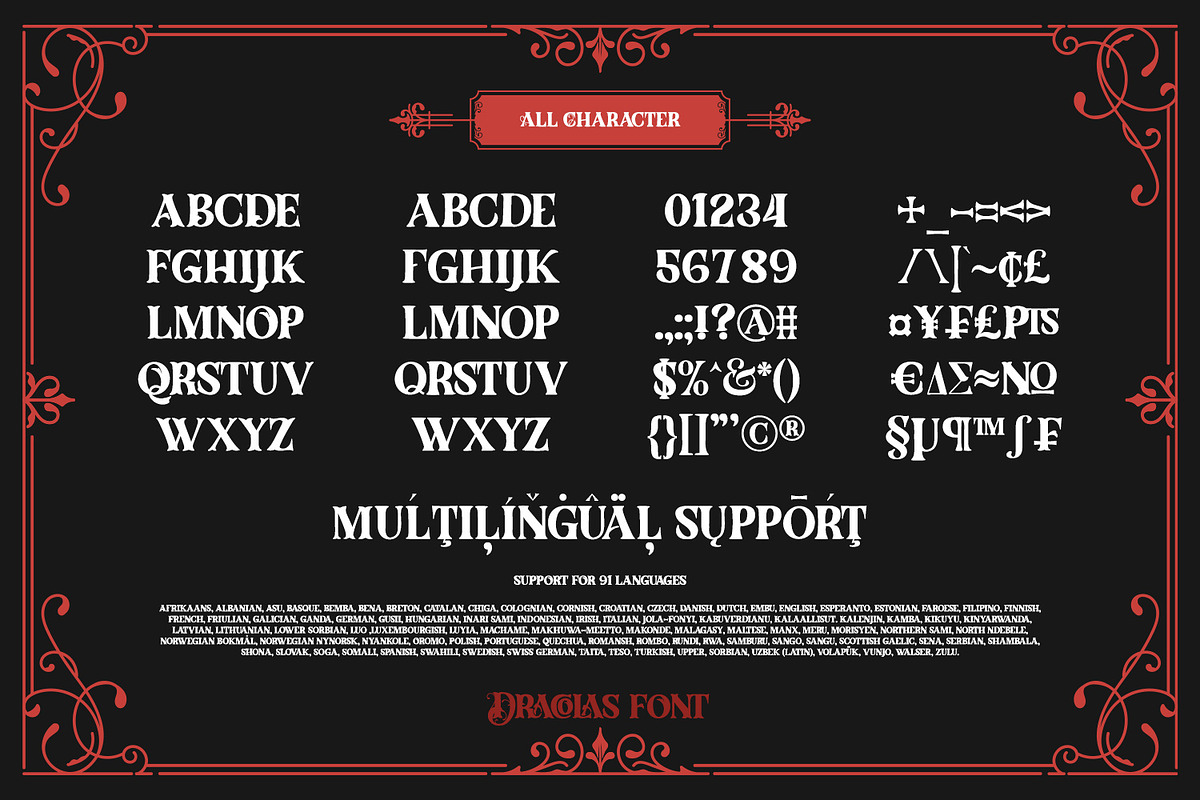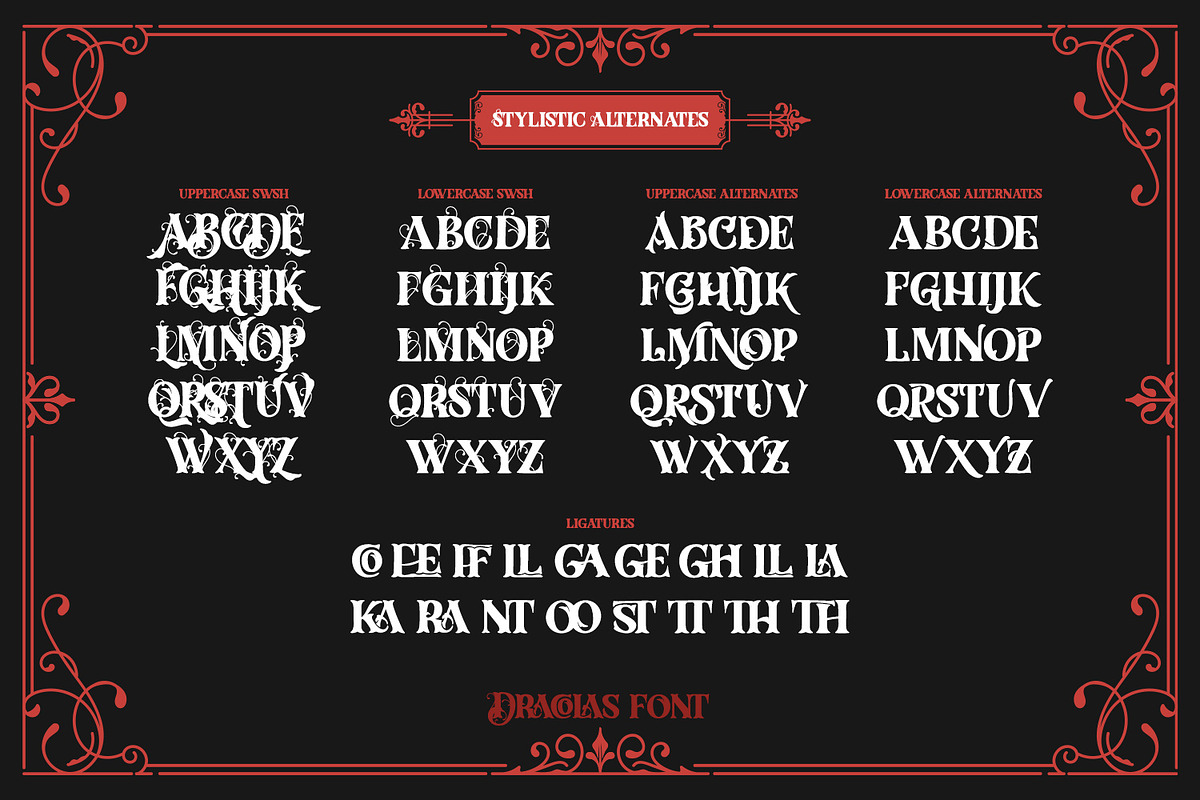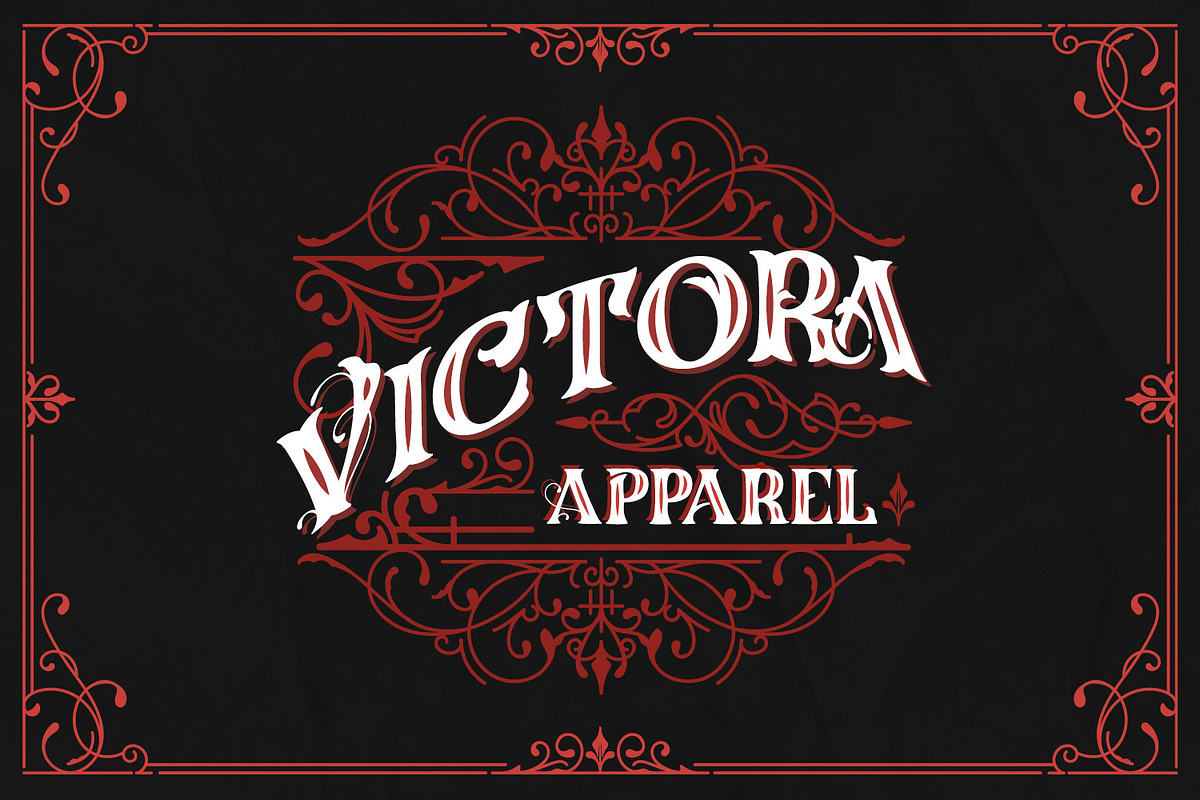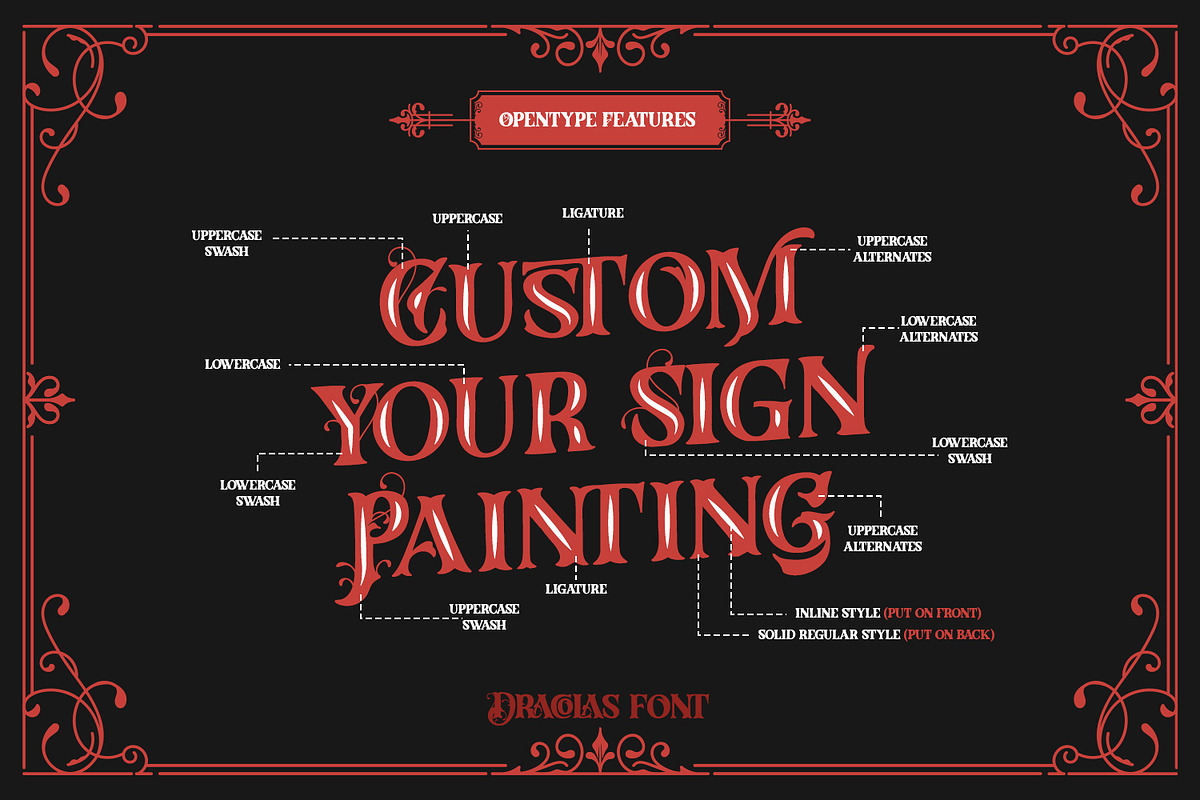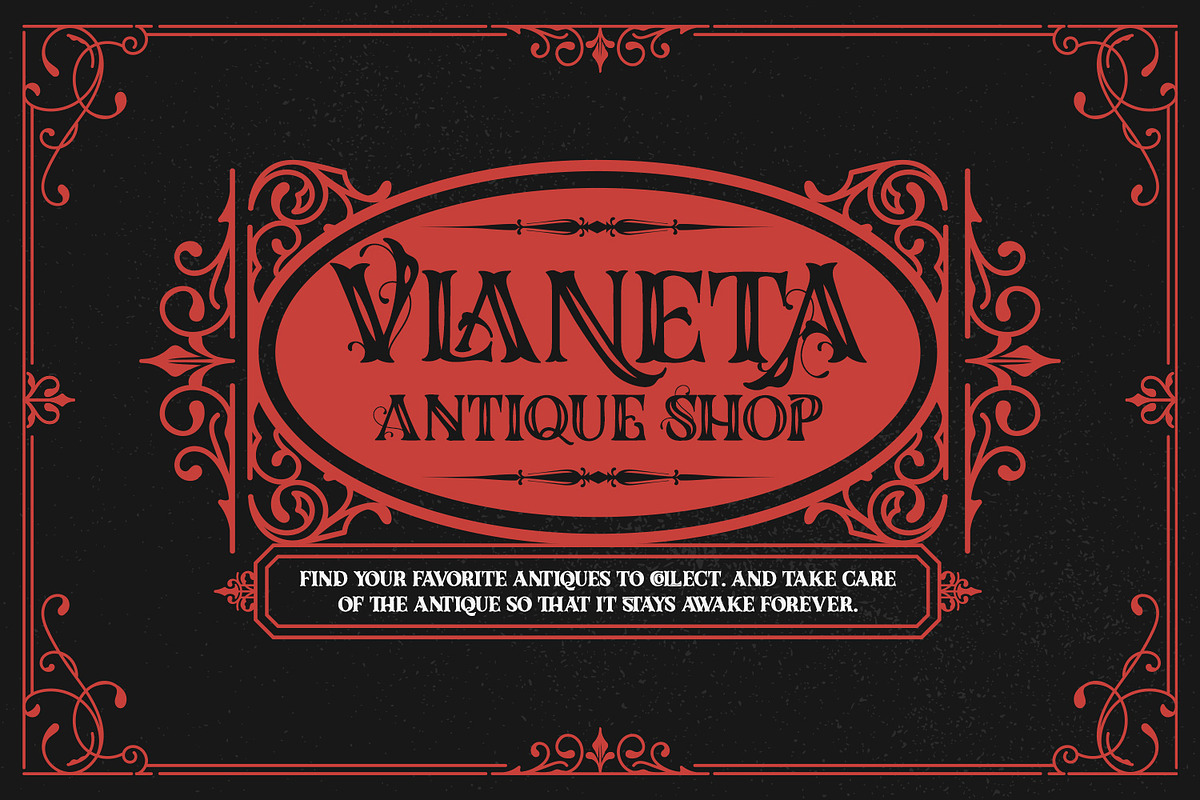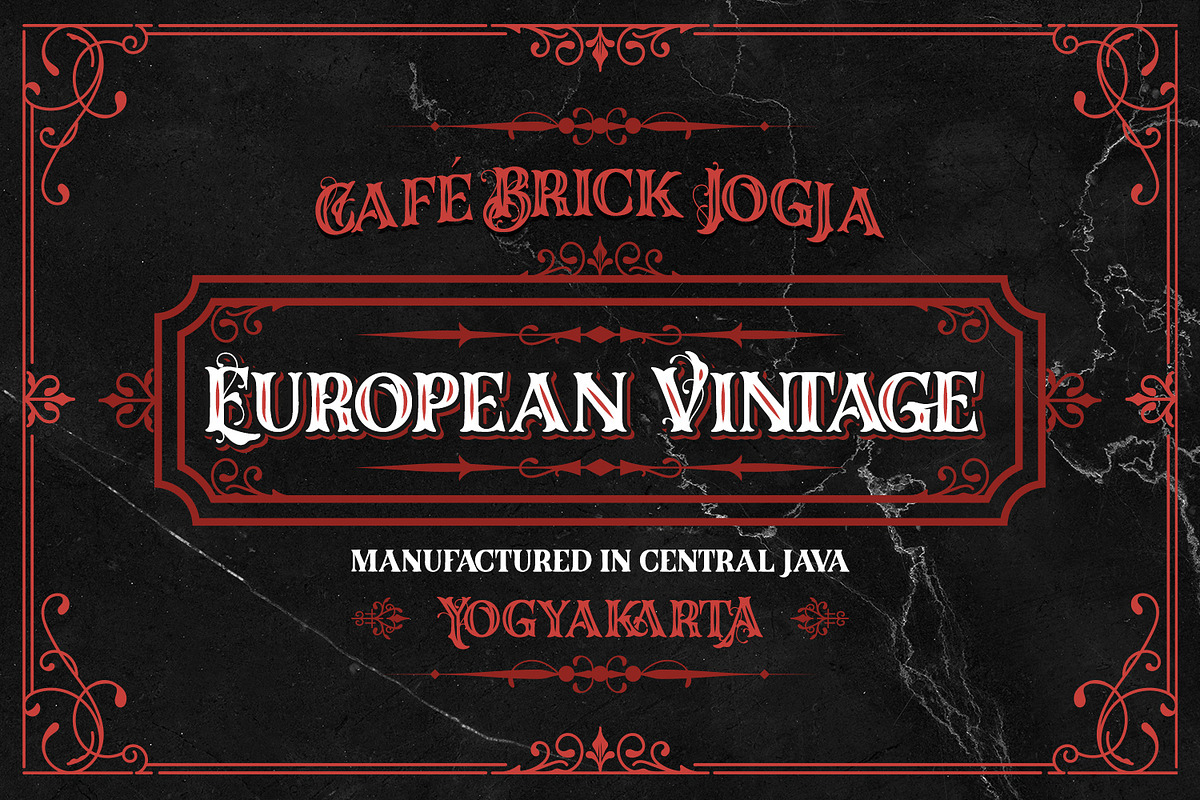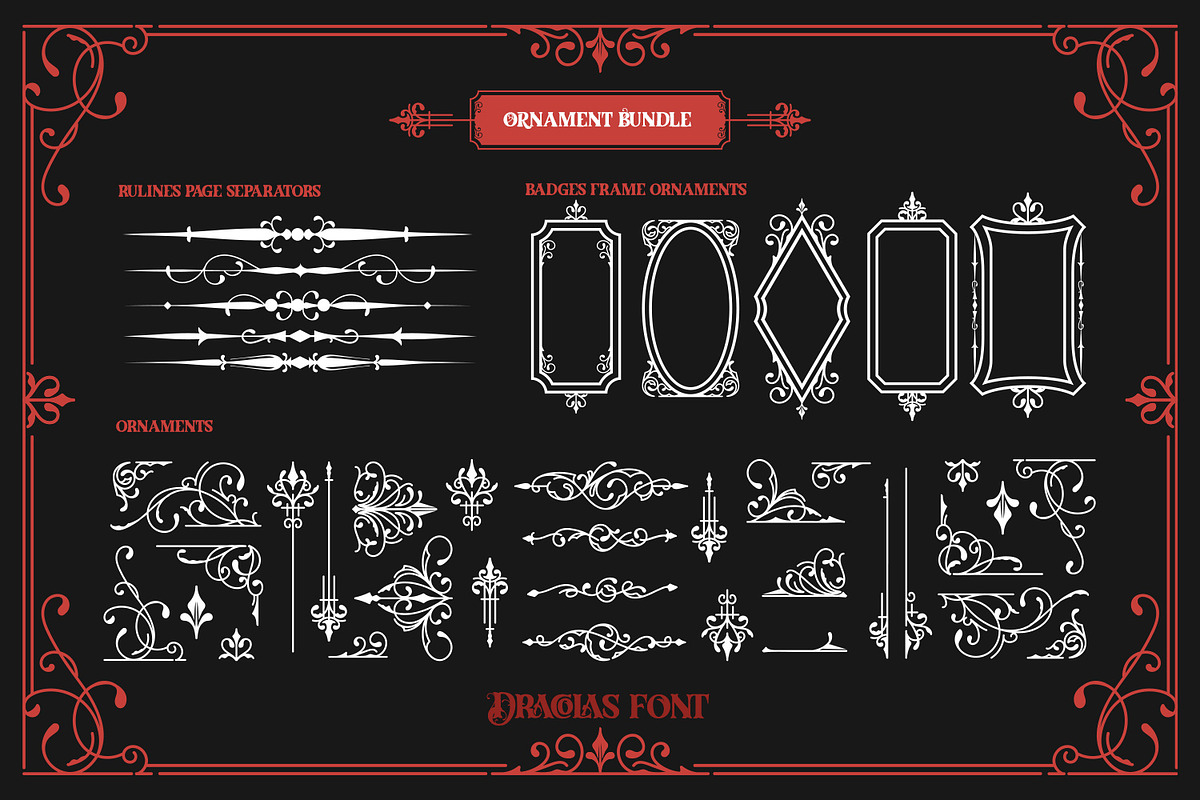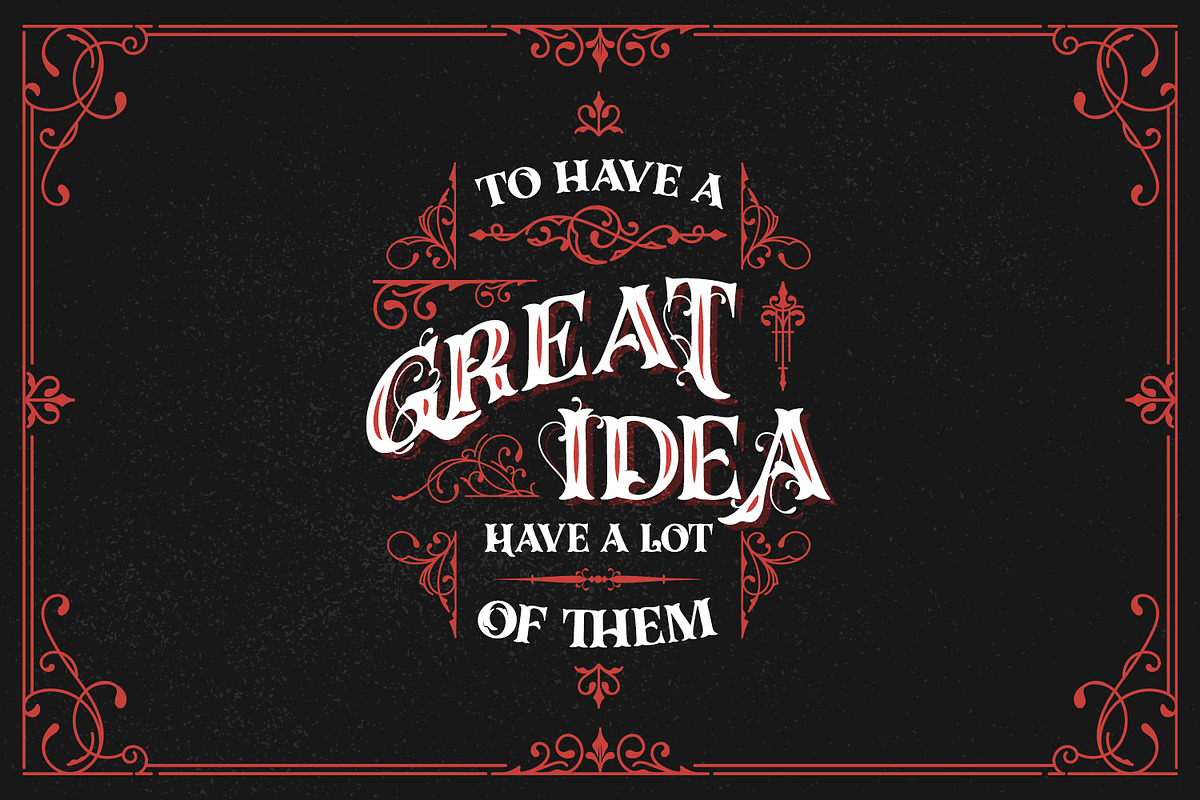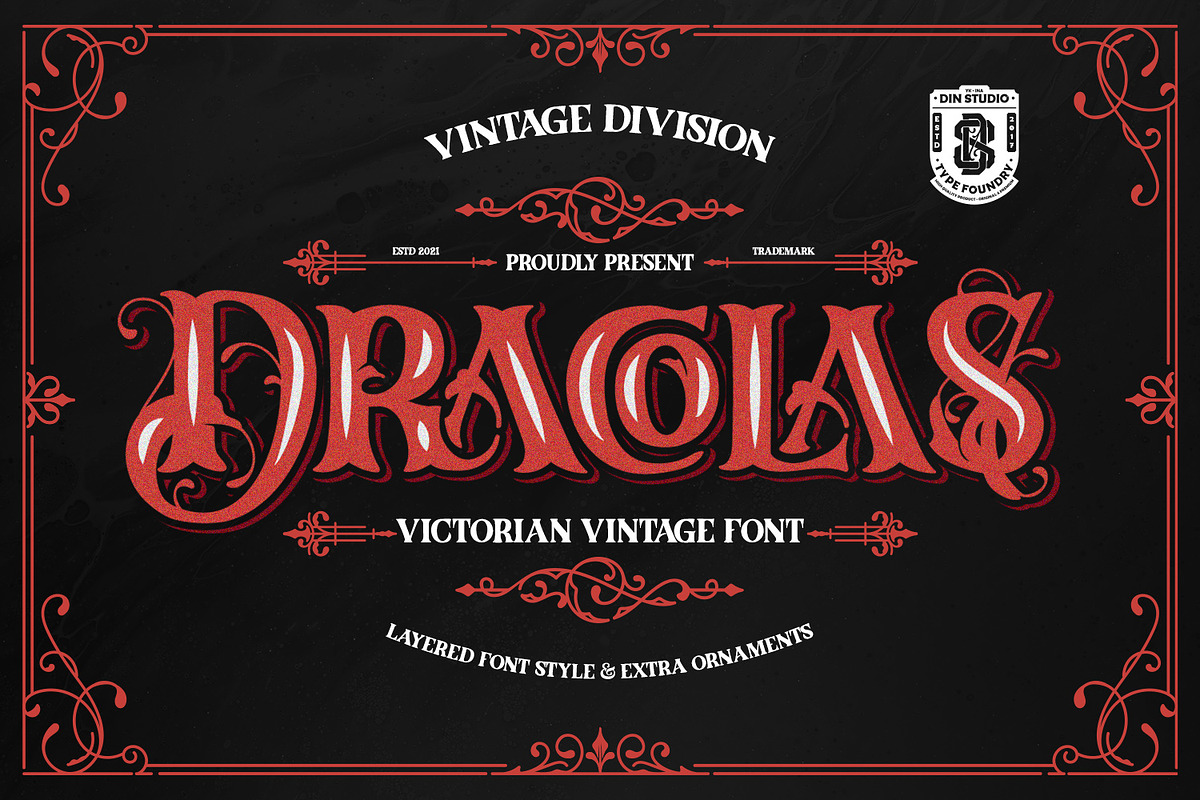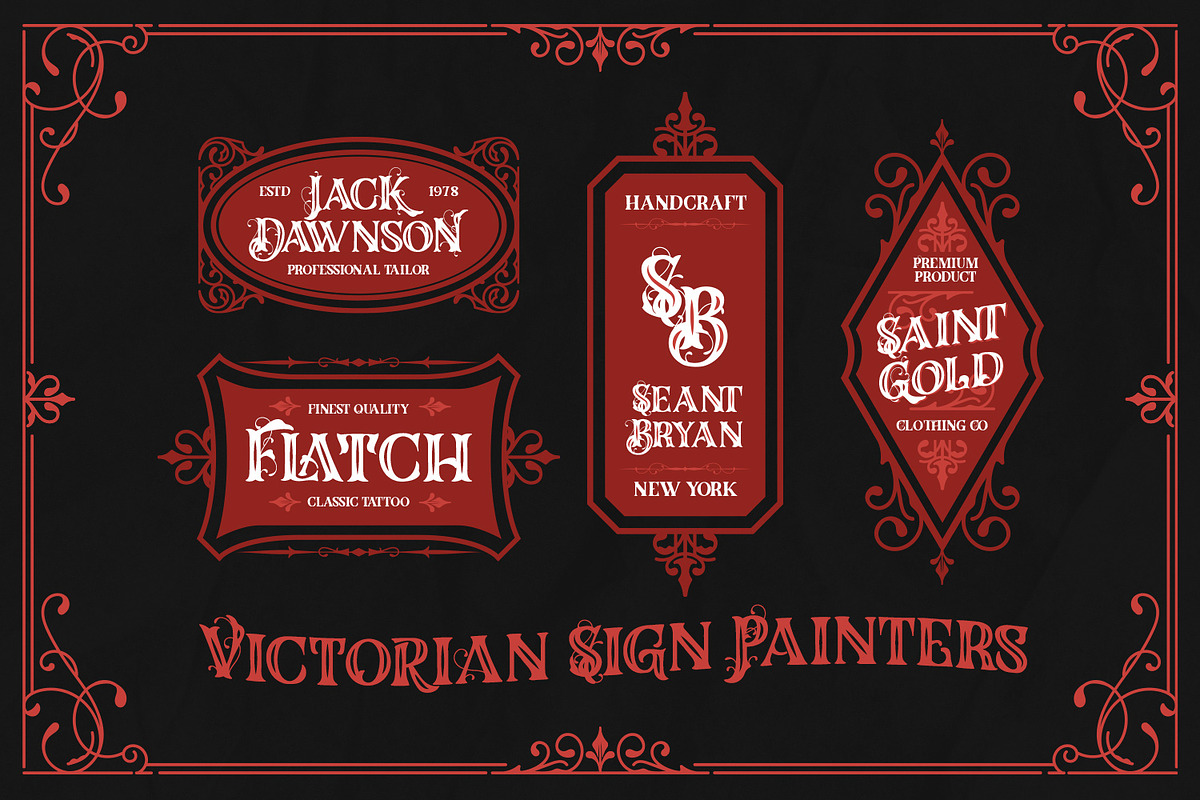
Dracolas
Ready to enhance your branding? Looking for that “something” that’ll make your audience go WOW and clients get on board immediately? Ready to enhance your branding? Looking for that “something” that’ll make your audience go WOW and clients get on board immediately?
Dracolas-A Vintage Font
Dracolas is a typeface that is made all characters in uppercase. An excellent choice to add the right amount of retro touch. This typeface with artistic style looks very interesting for loads of different projects and promotions. A great all-in-one package for your logo, book cover, poster, t-shirt, branding, and advertisement needs.
- Bonus Ornament